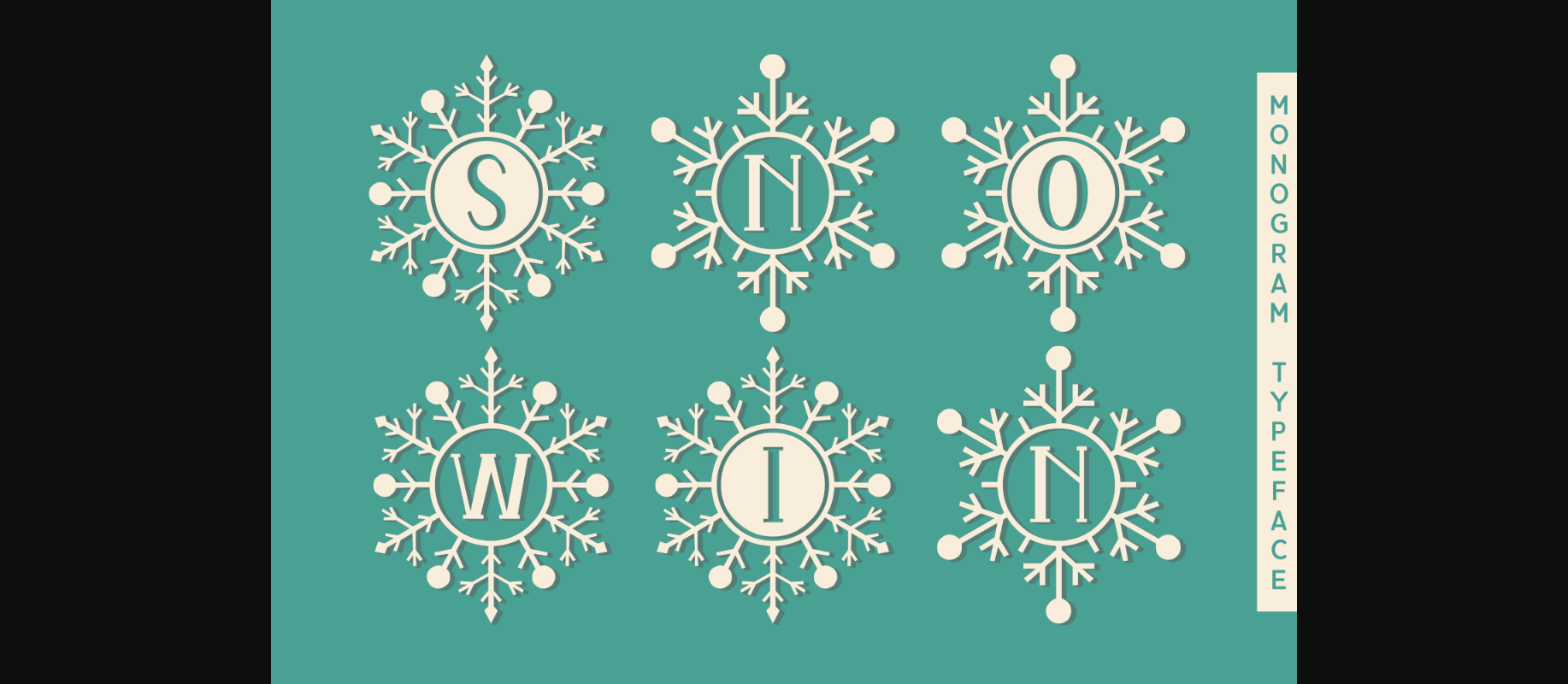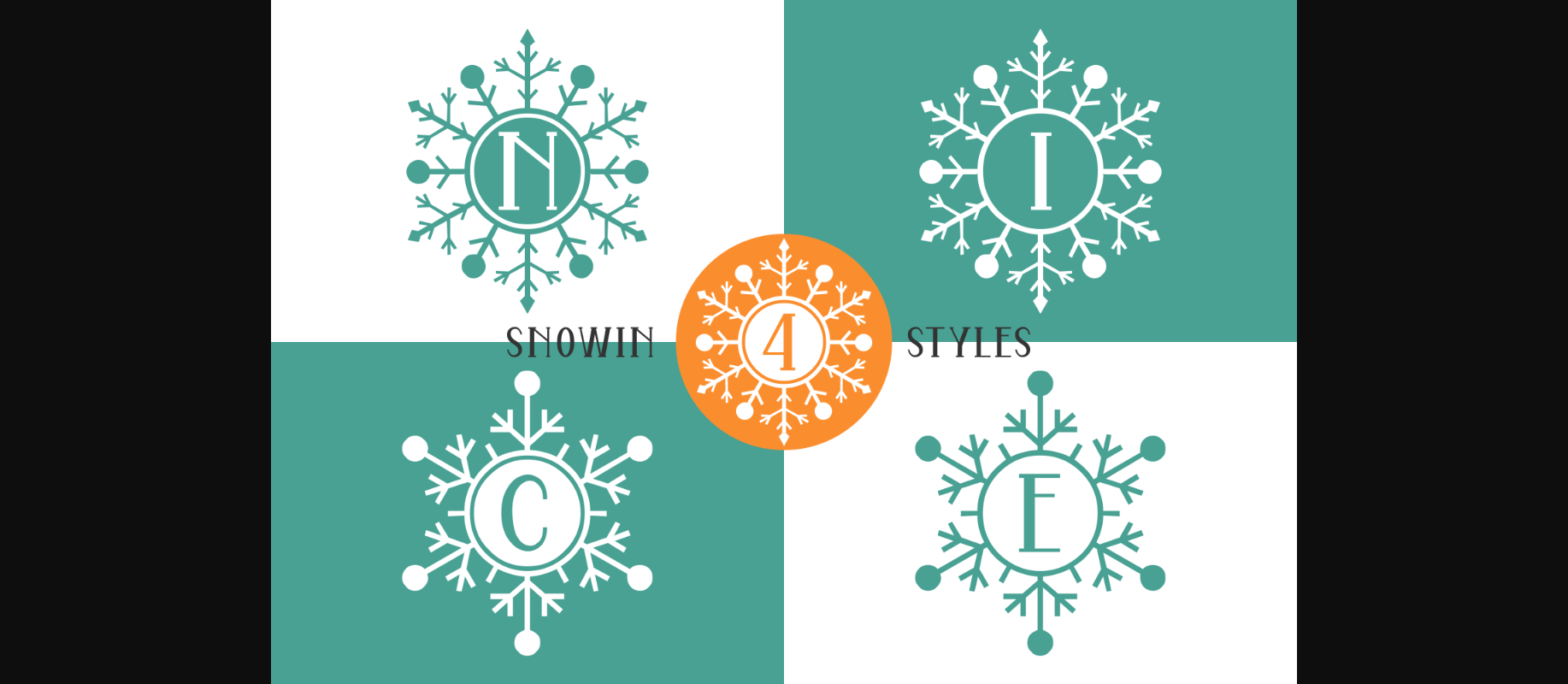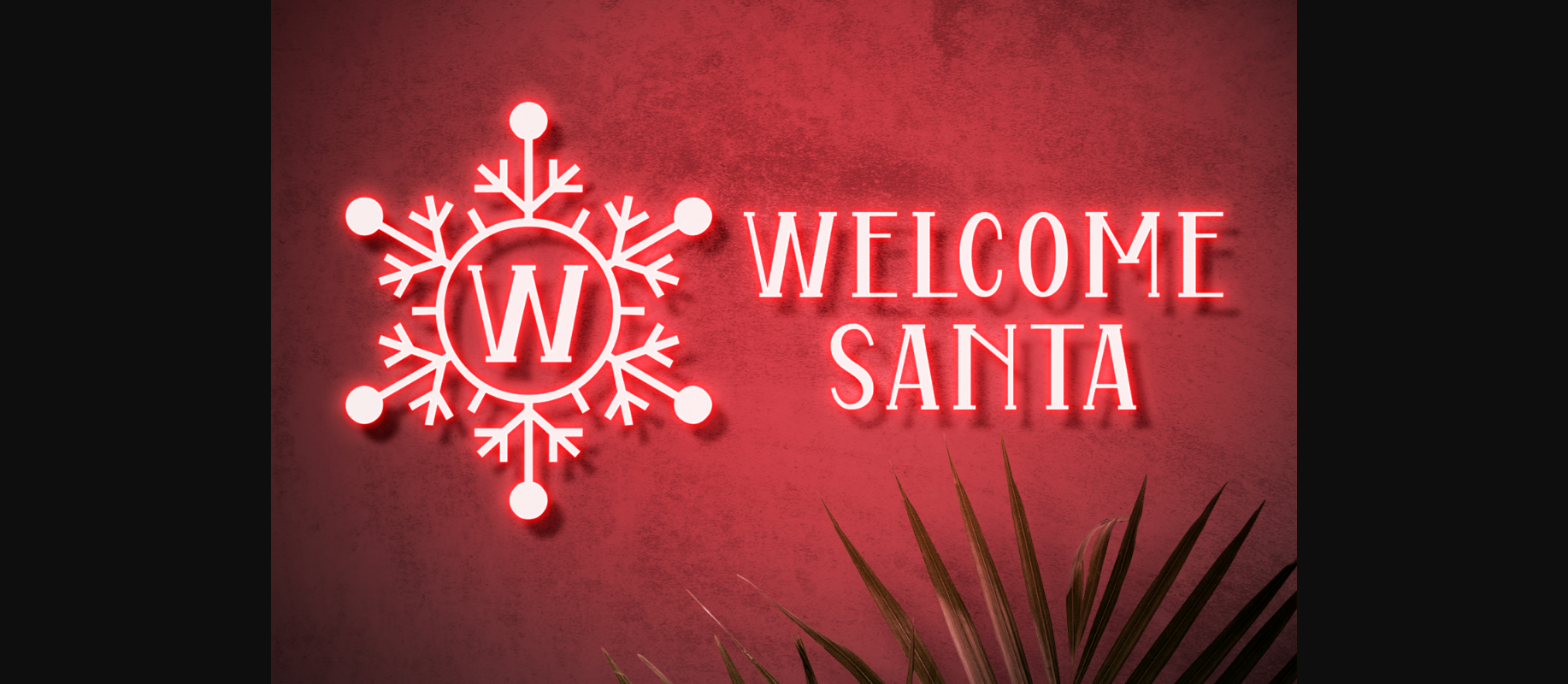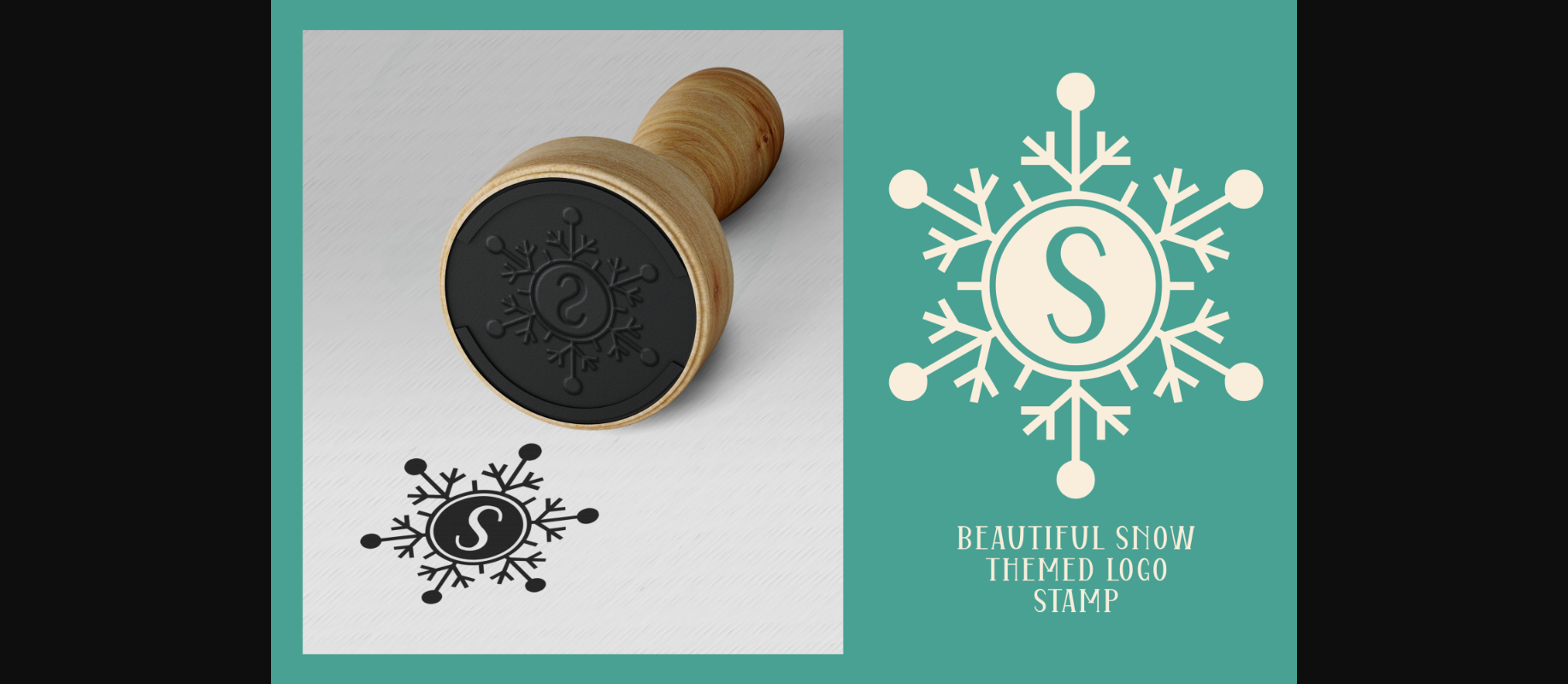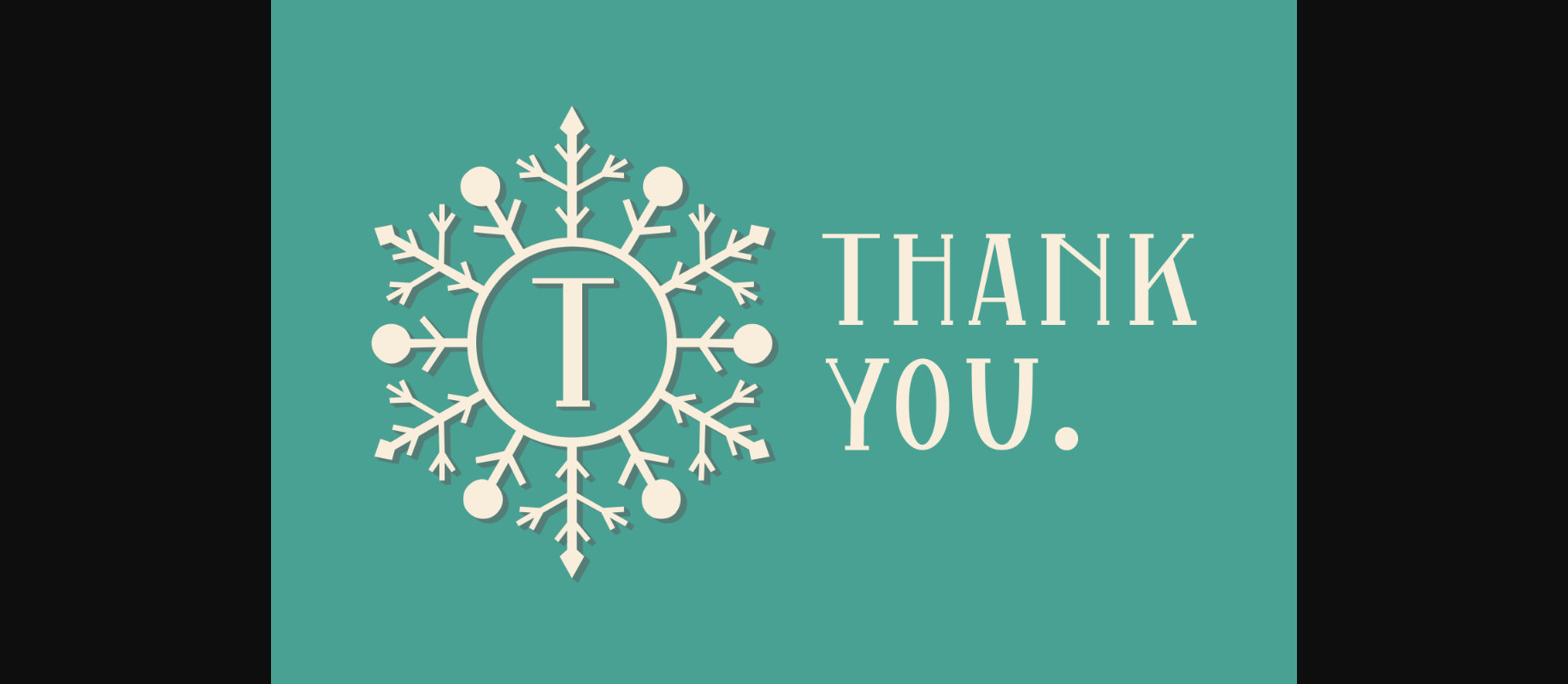
Snowin Font
About Snowin Font
Snowin is an authentic and wintery decorative font. Add this lovely looking font to each of your greeting cards, wedding invitations or favorite design ideas, and you will be astounded by the outcome.